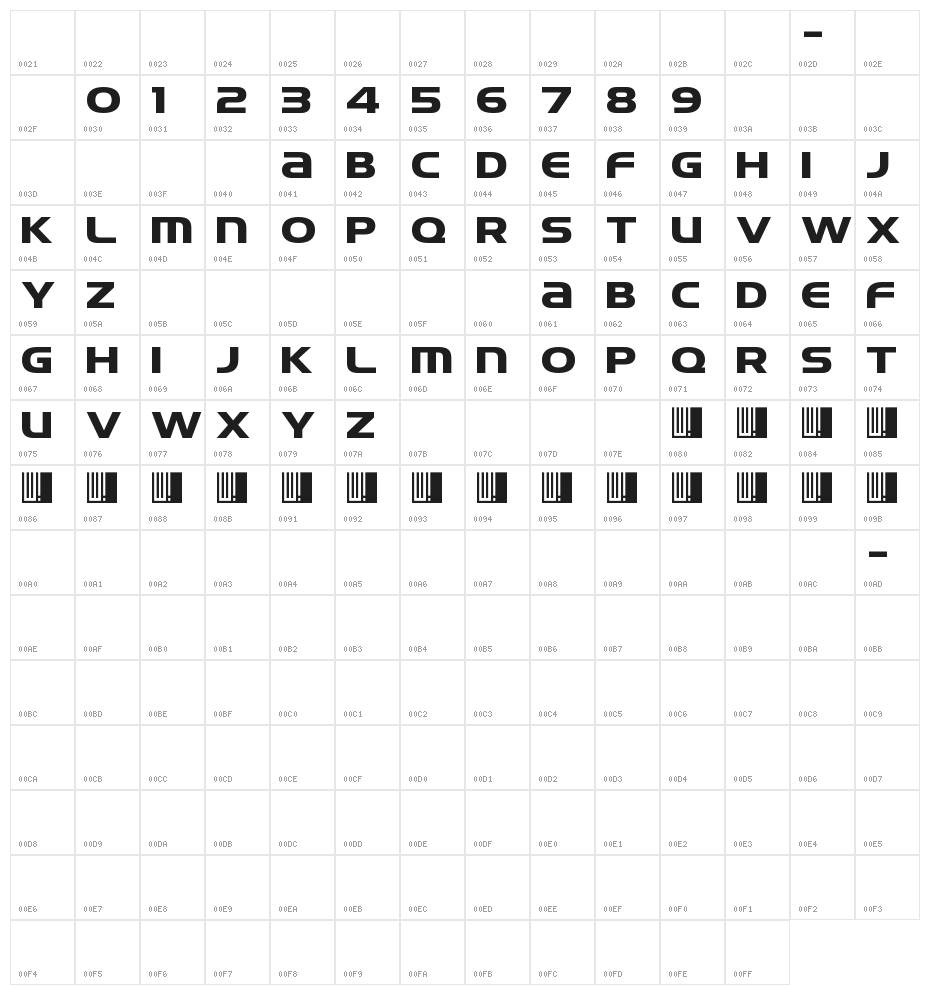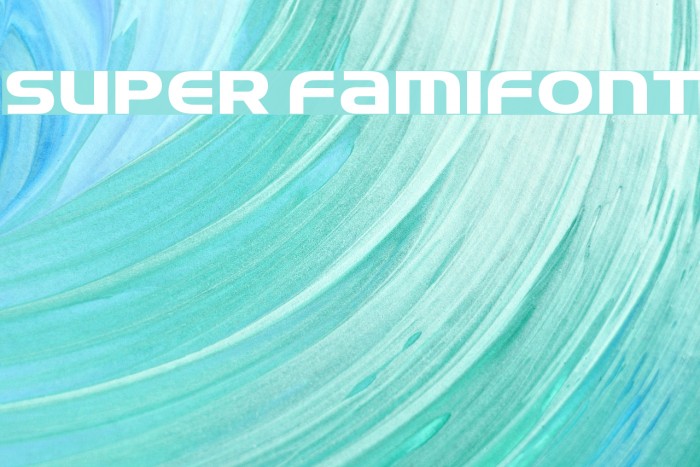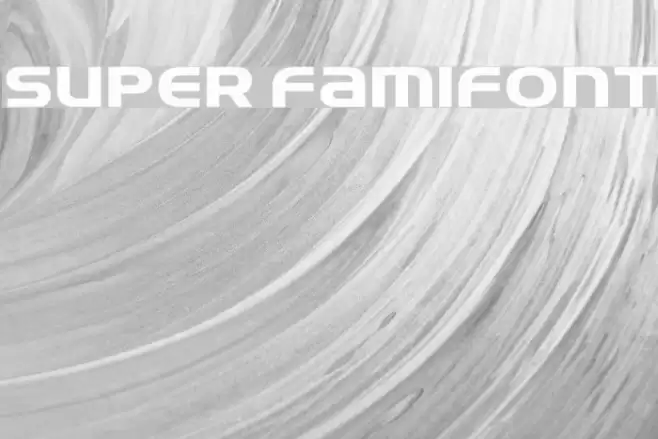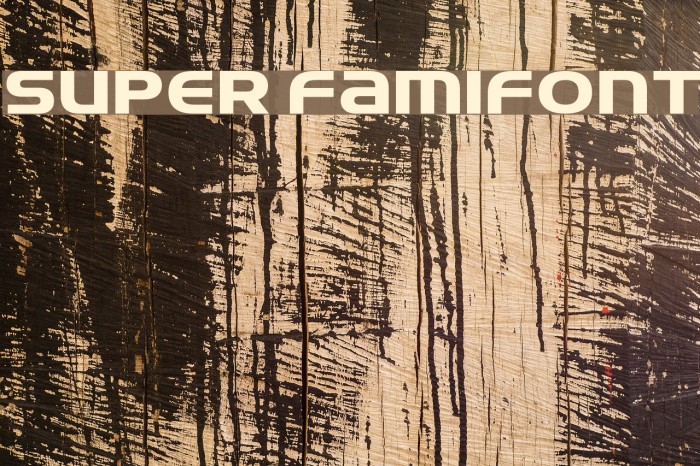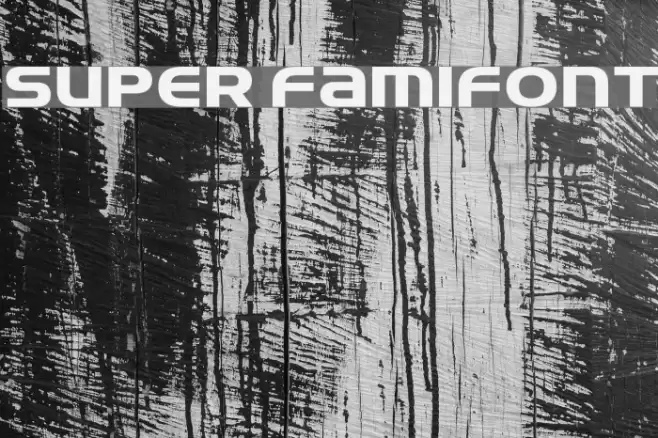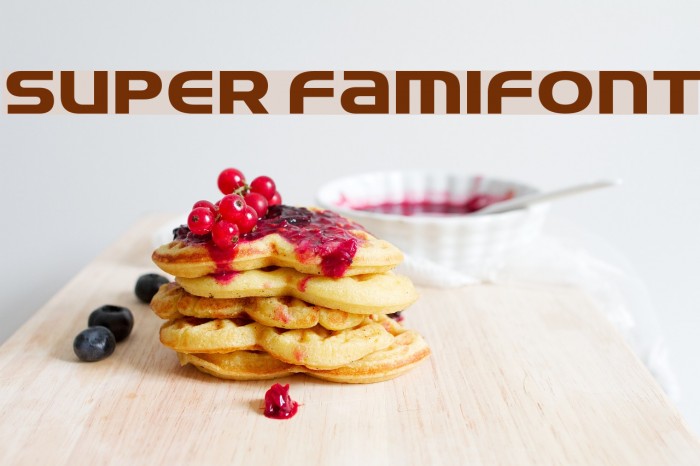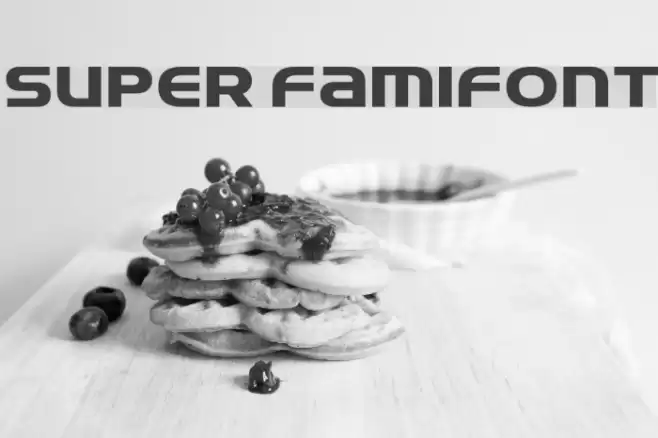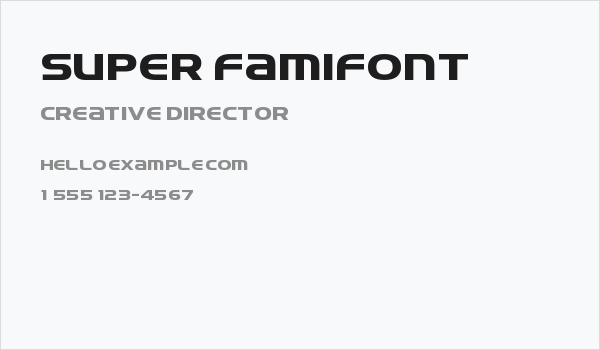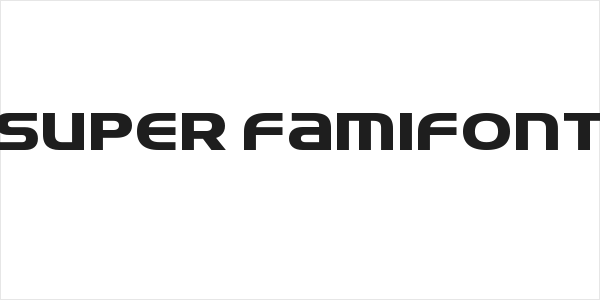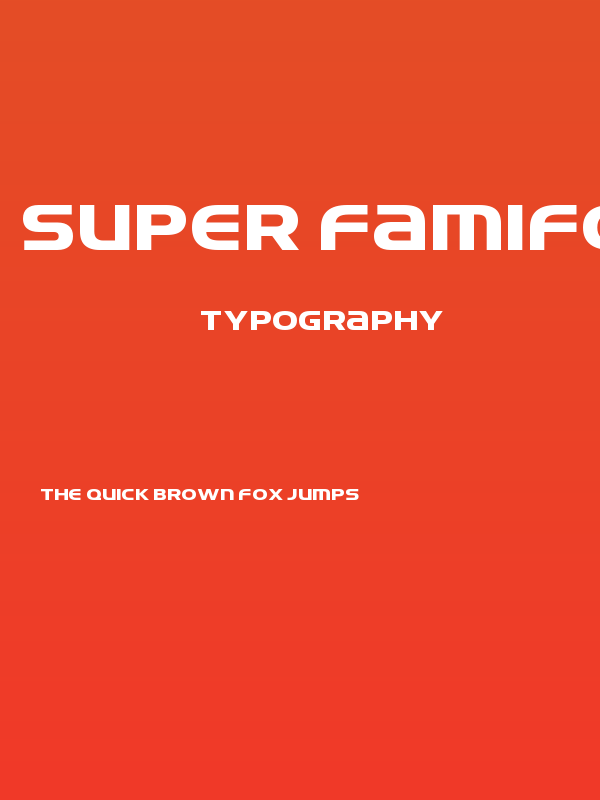
Super FamiFont Font
Super FamiFont Description
This font features a bold, geometric design with a modern and futuristic aesthetic. The characters are constructed with clean, straight lines and rounded edges, giving them a sleek and polished appearance. The uppercase and lowercase letters maintain a consistent style, with a uniform height and width that enhances readability. The numerals and special characters are designed to match the overall style, ensuring a cohesive look across all text elements. The font's boldness and distinct character shapes make it ideal for attention-grabbing headlines and titles.
| Proposed Projects | Ideal for video game titles, tech branding, futuristic posters, and digital interfaces. |